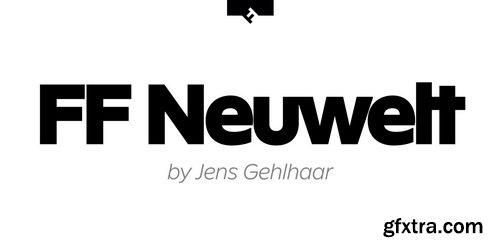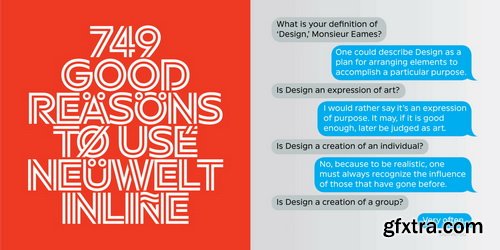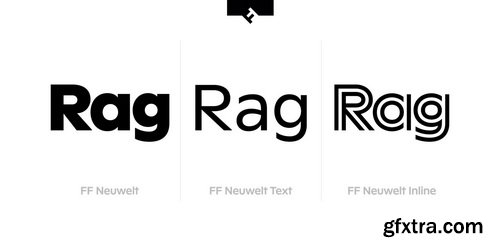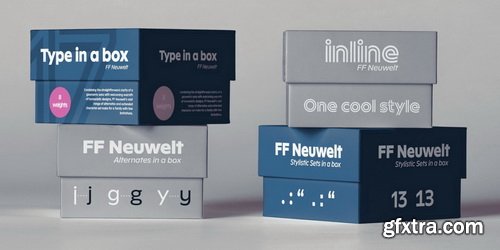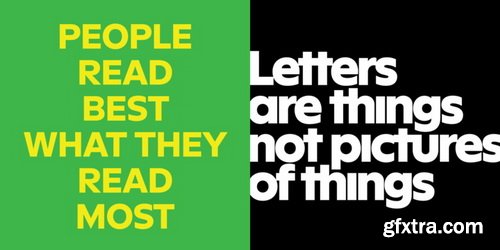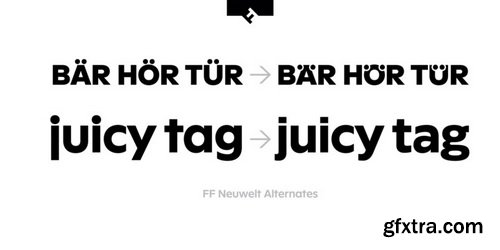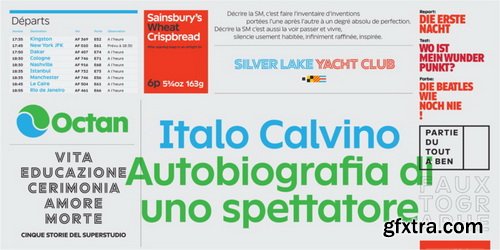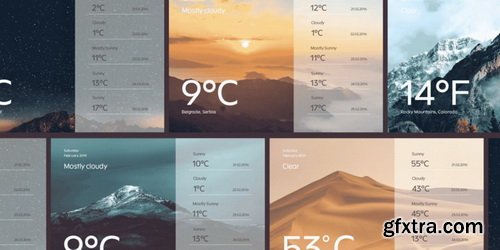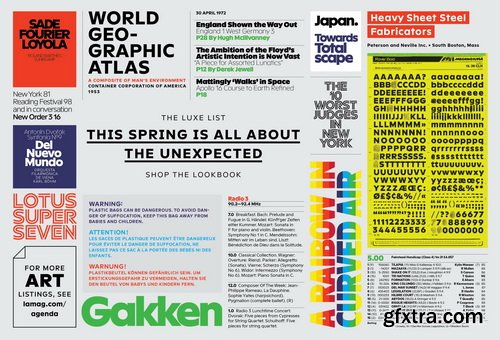
FF Neuwelt is spaced for sizes larger than 16 point, while FF Neuwelt Text has more open letterspacing to set perfectly at sizes smaller than 16 point. In addition, five key lowercase characters were drawn with more legible shapes. The result is that FF Neuwelt adapts from text to larger sizes and one stylistic mien to another with ease and grace. FF Neuwelt is a natural for interactive design, performing well on both large digital displays and small screens. Counters are generous and apertures are open, making them a perfect choice when setting text as microcopy or in short blocks where quick and accurate comprehension is the goal. Even the heaviest weights translate well to on-screen reading. FF Neuwelt also speaks with authority in large sizes on big screens.